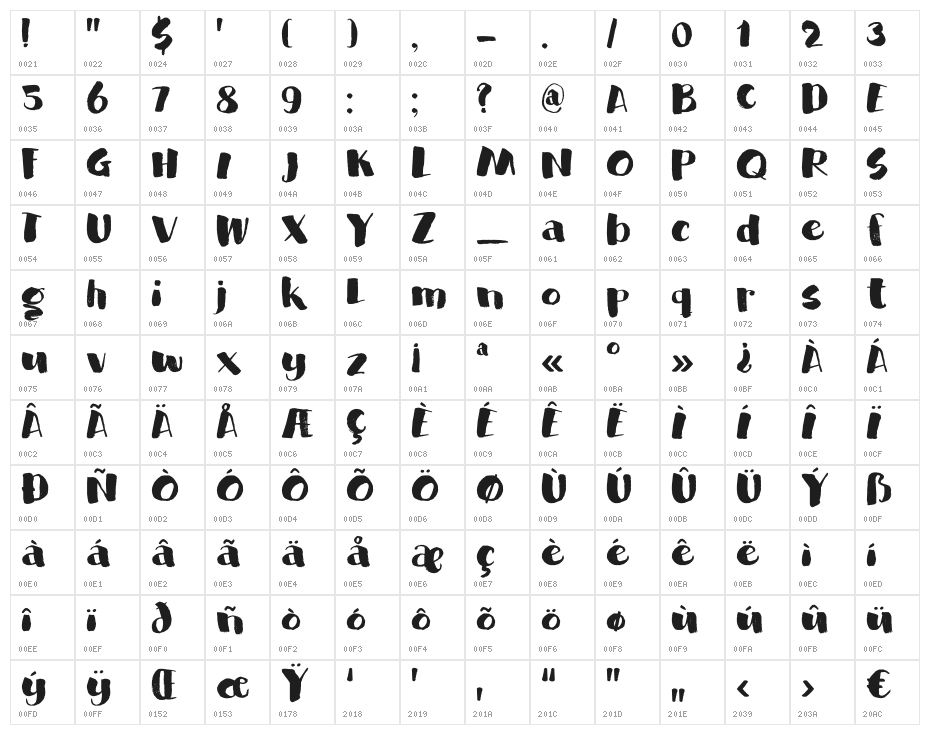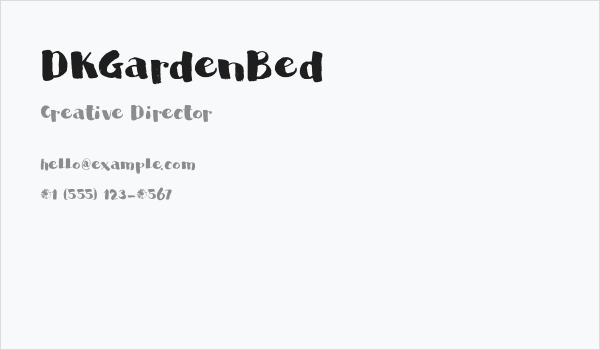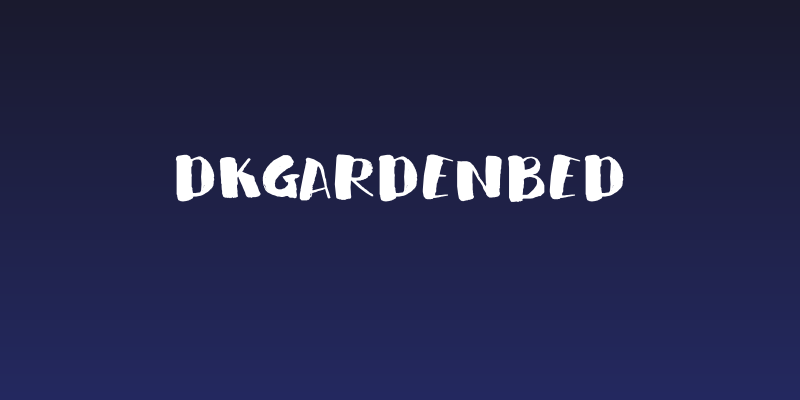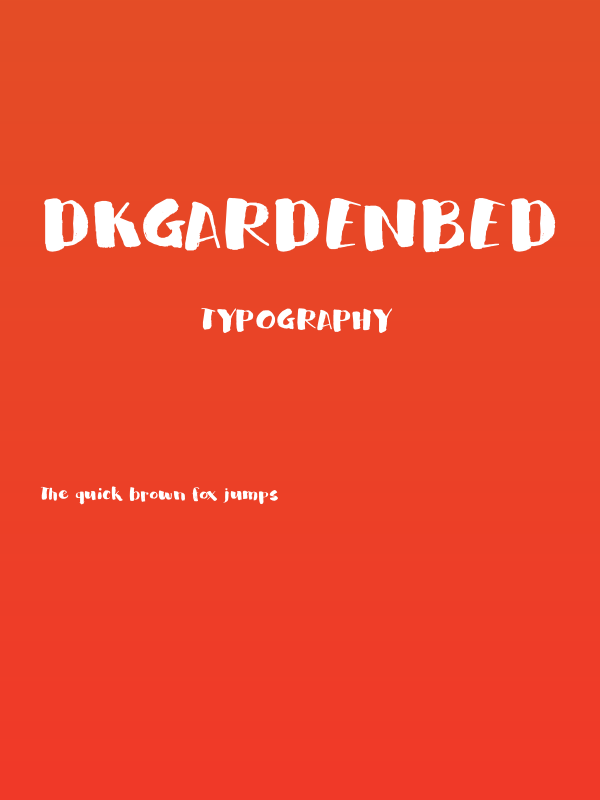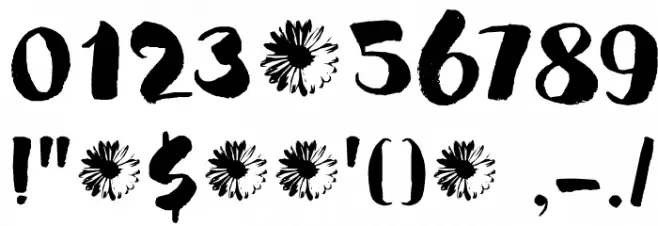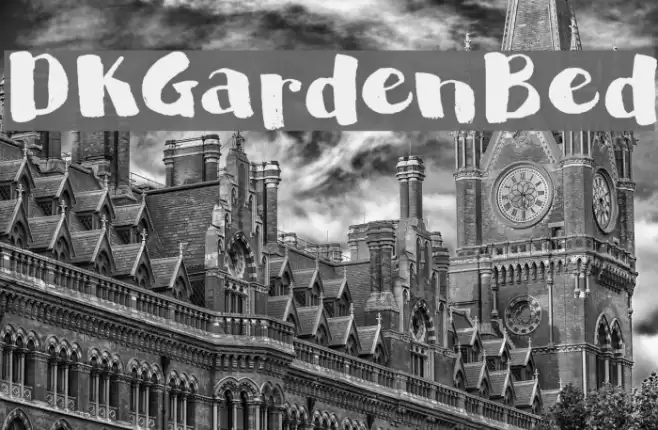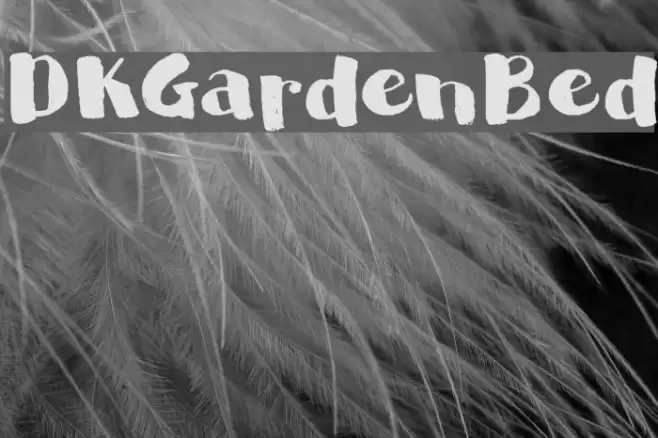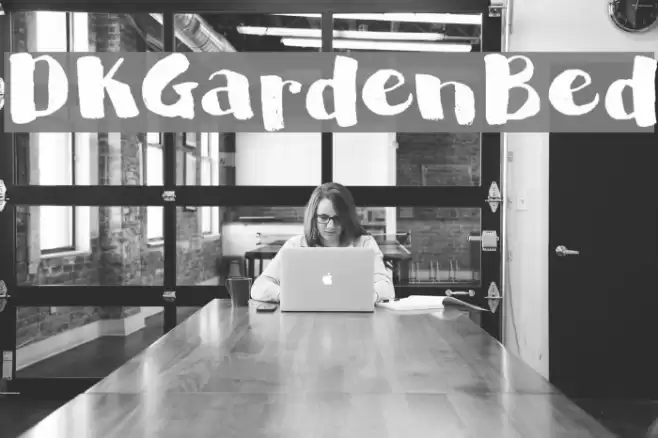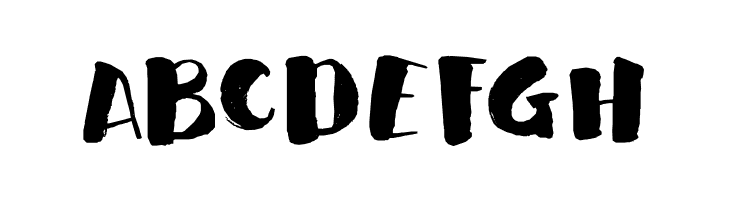
DKGardenBed Font
DKGardenBed Description
This font features a bold, brush-stroke style that exudes a sense of creativity and artistic flair. The characters are crafted with a rough, textured appearance, reminiscent of hand-painted lettering. The uppercase and lowercase letters maintain a consistent style, with a playful and dynamic form that suggests movement and energy. The numbers and special characters follow the same artistic theme, adding a unique touch to any design. This font is ideal for projects that require a personal, handcrafted feel, such as invitations, posters, or branding for creative businesses.
| Overall Style | Artistic, Creative, Handcrafted |
| Use Case | Headlines, Logos, Artistic projects |
| Proposed Projects | Ideal for invitations, posters, creative branding, and artistic projects. |